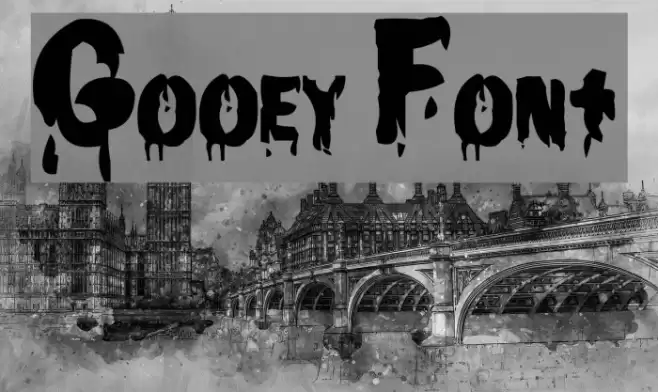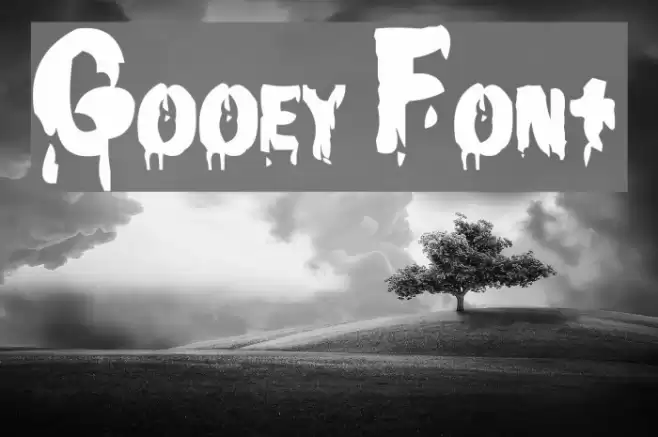
Gooey Font
Gooey Description
This font features a unique, dripping effect that gives it a gooey, liquid appearance. The characters are bold and heavily stylized, with each letter appearing as if it is melting or dripping downwards. This creates a dynamic and eye-catching look, perfect for themes that require a sense of horror, mystery, or playfulness. The uppercase and lowercase letters maintain this consistent style, with exaggerated curves and uneven edges that enhance the fluidity of the design. The numbers and special characters also follow this theme, ensuring a cohesive look across all text elements.
A bold, dripping font with a gooey, liquid appearance from Horror fonts.
- Proposed Projects: Ideal for Halloween-themed projects, horror movie posters, spooky invitations, or any design needing a playful yet eerie touch.
- Contrast: High